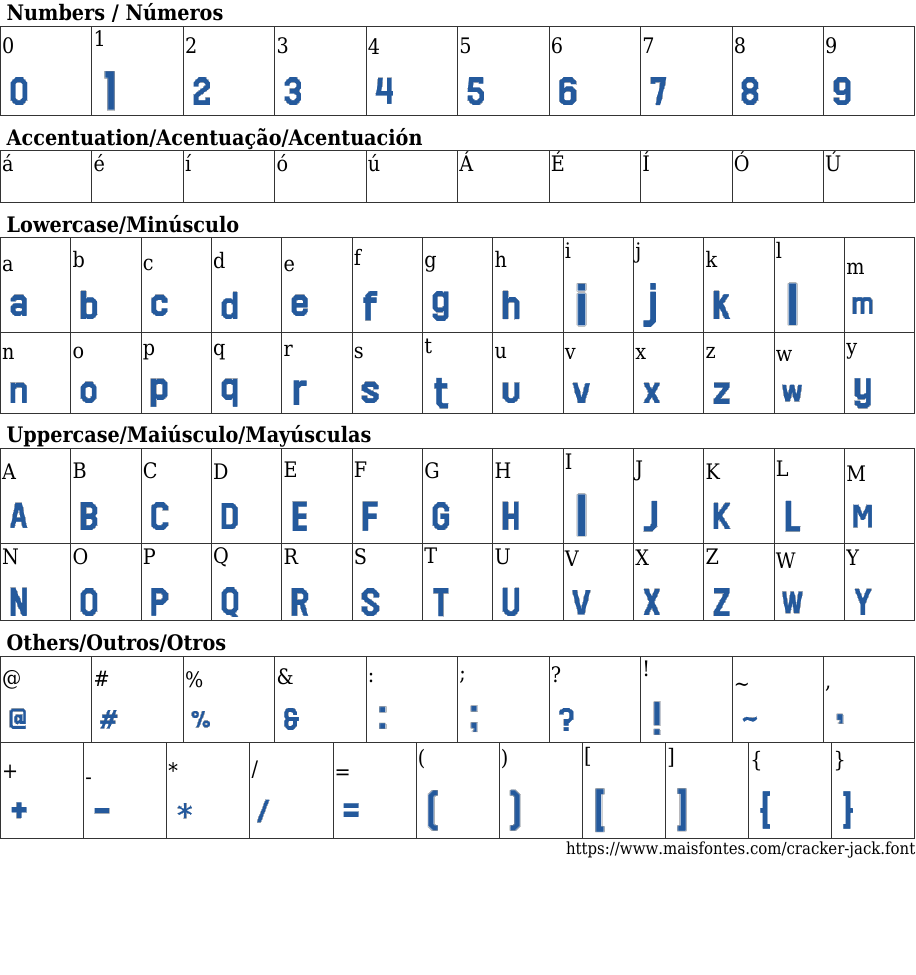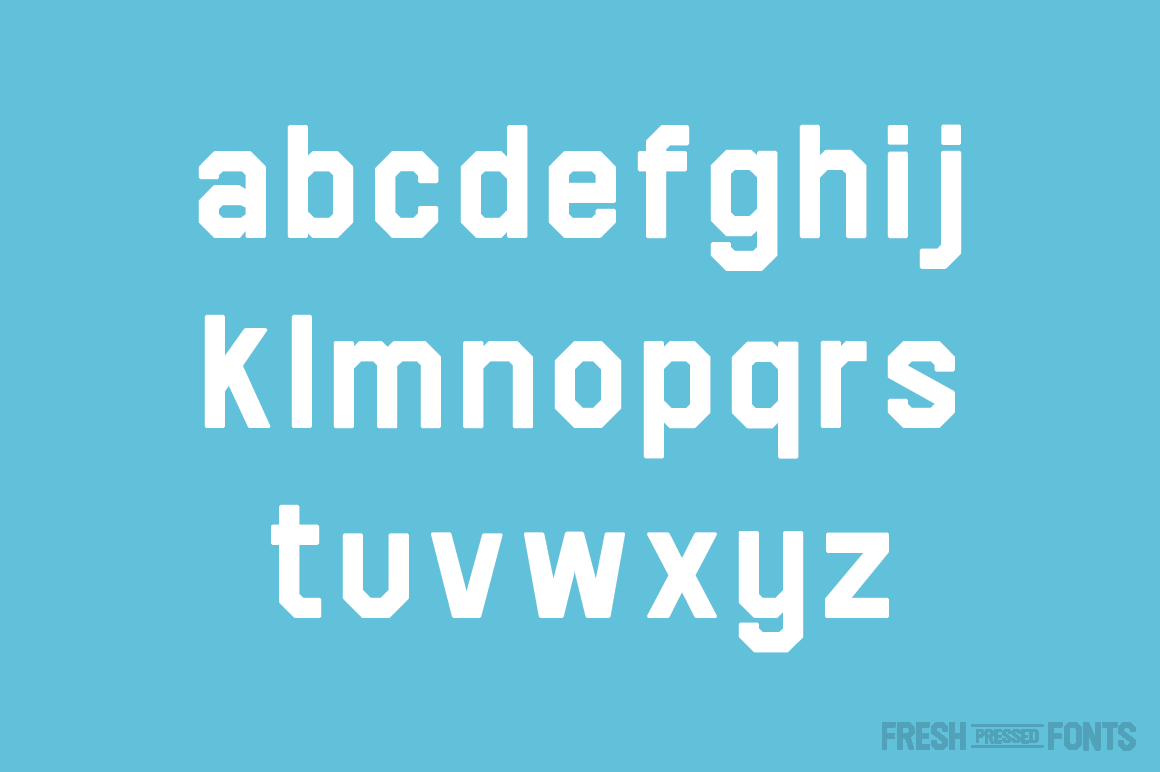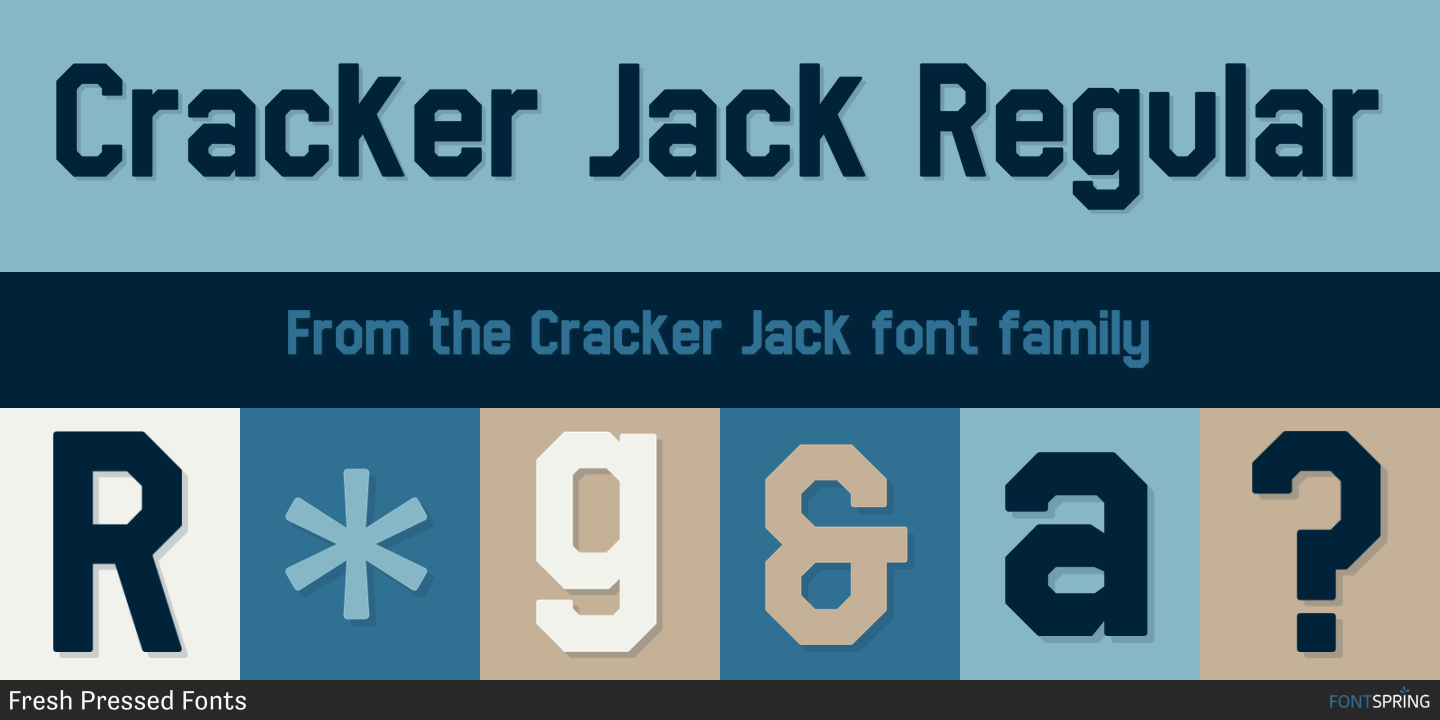
Cracker Jack Font . It comes in both upper and lower case, along with a generous glyph library containing over 100 characters. Click the download button to download the. Cracker jack is a sports inspired typeface with strong geometric angles. Cracker jack is a sports inspired typeface with strong geometric angles. Cracker jack works well as a display typeface that packs a punch but also holds its own when shrunk down smaller. It comes in both upper and lower case, along with a generous glyph library. Cracker jack is a sports inspired typeface with strong geometric angles. Cracker jack is a sports inspired typeface with strong geometric angles. Enter your own text and play with font size for the full experience. Archive of freely downloadable fonts. Cracker jack is the perfect font for all your fun designs. Identify fonts with our font finder tool using an image or photo. Browse by alphabetical listing, by style, by author or by popularity. Thousands of designers (famous or not) use the image font detection system to find a font or similar free fonts from an image. Whatthefont is available for both ios and android devices.
Thousands of designers (famous or not) use the image font detection system to find a font or similar free fonts from an image. Cracker jack is a sports inspired typeface with strong geometric angles. Whatthefont is available for both ios and android devices. Enter your own text and play with font size for the full experience. Click the download button to download the. Cracker jack is a sports inspired typeface with strong geometric angles. Cracker jack is a sports inspired typeface with strong geometric angles. Identify fonts with our font finder tool using an image or photo. It comes in both upper and lower case, along with a generous glyph library containing over 100 characters. Cracker jack is the perfect font for all your fun designs.
Cracker Jack Font Cracker jack is a sports inspired typeface with strong geometric angles. Cracker jack is a sports inspired typeface with strong geometric angles. Cracker jack is a sports inspired typeface with strong geometric angles. The font subfamily is regular. It comes in both upper and lower case, along with a generous glyph library containing over 100 characters. Cracker jack is a sports inspired typeface with strong geometric angles. Archive of freely downloadable fonts. Identify fonts with our font finder tool using an image or photo. It comes in both upper and lower case, along with a generous glyph library containing over 100 characters.cracker. Cracker jack is the perfect font for all your fun designs. Thousands of designers (famous or not) use the image font detection system to find a font or similar free fonts from an image. It comes in both upper and lower case, along with a generous glyph library. Cracker jack works well as a display typeface that packs a punch but also holds its own when shrunk down smaller. Browse by alphabetical listing, by style, by author or by popularity. Cracker jack is a sports inspired typeface with strong geometric angles. Whatthefont is available for both ios and android devices.
Cracker Jack Font Behance Cracker Jack Font Thousands of designers (famous or not) use the image font detection system to find a font or similar free fonts from an image. Cracker jack is a sports inspired typeface with strong geometric angles. Cracker jack is a sports inspired typeface with strong geometric angles. Click the download button to download the. It comes in both upper and lower case,. Cracker Jack Font.
Vintage Enamel Cracker Jack Sign Etsy Cracker Jack Font Click the download button to download the. Cracker jack works well as a display typeface that packs a punch but also holds its own when shrunk down smaller. It comes in both upper and lower case, along with a generous glyph library containing over 100 characters. Identify fonts with our font finder tool using an image or photo. Cracker jack. Cracker Jack Font.
Cracker Jack Font It comes in both upper and lower case, along with a generous glyph library containing over 100 characters.cracker. Cracker jack is the perfect font for all your fun designs. It comes in both upper and lower case, along with a generous glyph library containing over 100 characters. Cracker jack is a sports inspired typeface with strong geometric angles. Click the. Cracker Jack Font.
Crackers Font Grewfont Studio FontSpace Cracker Jack Font It comes in both upper and lower case, along with a generous glyph library. The font subfamily is regular. Cracker jack is a sports inspired typeface with strong geometric angles. Cracker jack works well as a display typeface that packs a punch but also holds its own when shrunk down smaller. Thousands of designers (famous or not) use the image. Cracker Jack Font.
Cracker Jack Font Behance Cracker Jack Font Identify fonts with our font finder tool using an image or photo. Cracker jack is the perfect font for all your fun designs. It comes in both upper and lower case, along with a generous glyph library containing over 100 characters. Browse by alphabetical listing, by style, by author or by popularity. Enter your own text and play with font. Cracker Jack Font.
Graham Cracker Font 5 Sizes! Products SWAK Embroidery Cracker Jack Font Cracker jack is a sports inspired typeface with strong geometric angles. Cracker jack is a sports inspired typeface with strong geometric angles. Identify fonts with our font finder tool using an image or photo. The font subfamily is regular. Click the download button to download the. Cracker jack is the perfect font for all your fun designs. It comes in. Cracker Jack Font.
Cracker Jack Font Behance Cracker Jack Font Thousands of designers (famous or not) use the image font detection system to find a font or similar free fonts from an image. Cracker jack is the perfect font for all your fun designs. Identify fonts with our font finder tool using an image or photo. The font subfamily is regular. It comes in both upper and lower case, along. Cracker Jack Font.
Clip Art Cracker Jack Font Ordo Templi Orientis , Free Transparent Cracker Jack Font Cracker jack is a sports inspired typeface with strong geometric angles. Archive of freely downloadable fonts. Identify fonts with our font finder tool using an image or photo. Cracker jack is the perfect font for all your fun designs. The font subfamily is regular. Click the download button to download the. It comes in both upper and lower case, along. Cracker Jack Font.
Cracker Grotesk Font All Free Fonts Cracker Jack Font Cracker jack is a sports inspired typeface with strong geometric angles. Cracker jack is a sports inspired typeface with strong geometric angles. It comes in both upper and lower case, along with a generous glyph library containing over 100 characters. Enter your own text and play with font size for the full experience. The font subfamily is regular. Browse by. Cracker Jack Font.